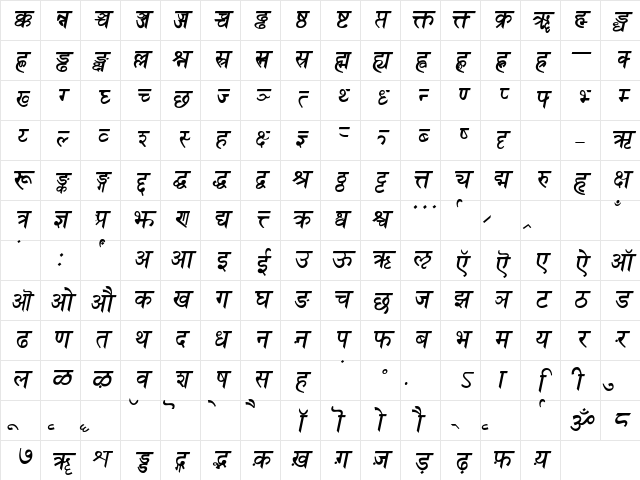
Sanskrit Bold Italic
Sanskrit Family
Sanskrit Bold Italic
Design Context for Sanskrit
Sanskrit is a composed and adaptable typeface that performs quietly and consistently across a wide range of design contexts. The slanted form adds forward momentum and visual energy. Its bold stroke weight gives it real presence on the page.